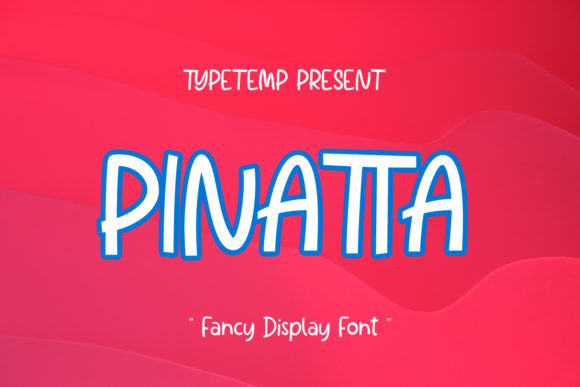
In a world teeming with digital monotony, where fonts often blend together like raindrops in a storm, Pinatta Font emerges as a beacon of visual allure. This display font, crafted by the ingenious minds at TempCraft, is not merely a collection of letters; it's an artistic gateway to a realm where creativity flourishes.
Step into the realm of Pinatta Font, and witness the transformative power it wields over your designs. Its bold, strong letters command attention, demanding to be seen and admired. Whether you're crafting a modern resume, designing an eye-catching poster, or simply adding a touch of whimsy to your digital creations, Pinatta Font stands ready to elevate your work to new heights.
More than just a font, Pinatta Font is an expression of your individuality, a reflection of your unique style. It's a font that speaks to the modern professional, the creative visionary, and the style-conscious individual who refuses to settle for the ordinary.
With Pinatta Font, you'll embark on a journey of visual exploration, discovering hidden depths of creativity within yourself. This font is not just a tool; it's an extension of your imagination, a conduit through which your ideas take shape and come to life.
So, embrace the captivating allure of Pinatta Font. Let its playful, vibrant spirit infuse your designs with a sense of joie de vivre. Experience the joy of creating with a font that truly understands the essence of modern aesthetics.